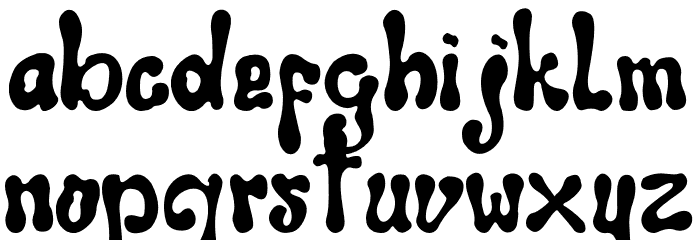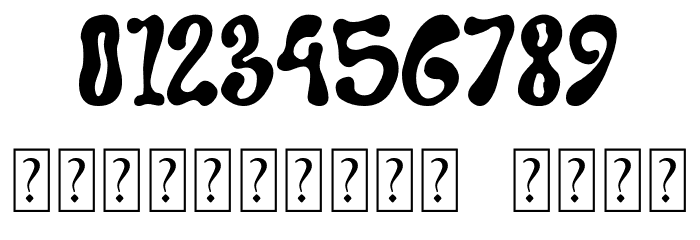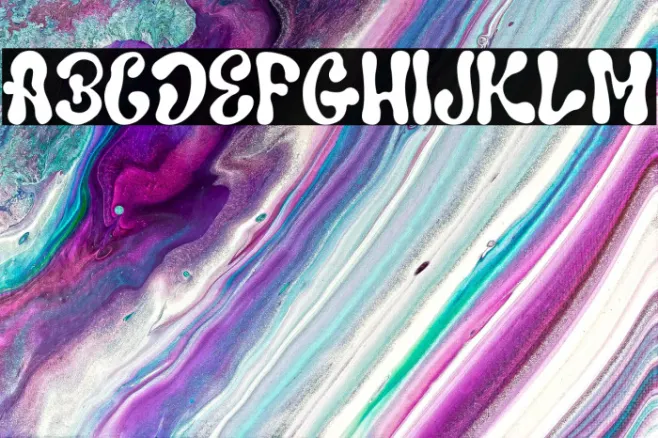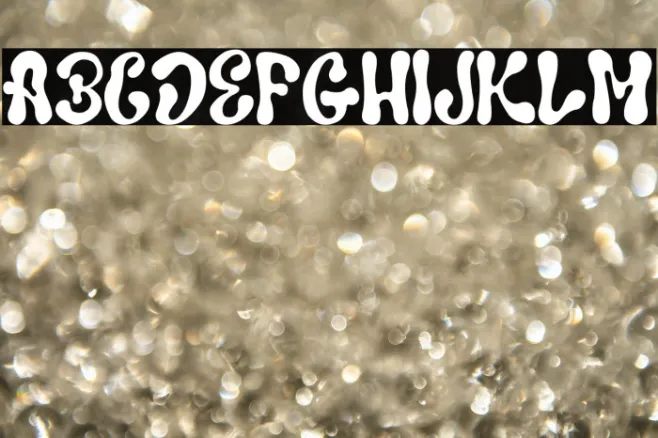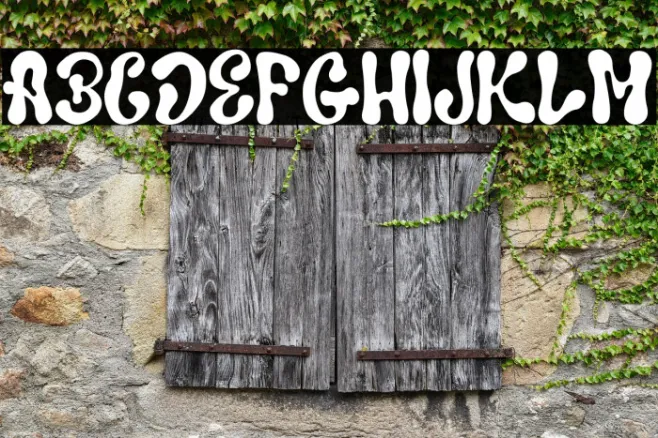
Wakaba Font
This font features a playful and bold design with a distinctly organic and fluid appearance. The characters are rounded and have a hand-drawn quality, giving them a whimsical and artistic feel. The strokes are thick and consistent, creating a strong visual impact. The uppercase and lowercase letters maintain a cohesive style, while the numbers and special characters complement the overall look. This font is ideal for projects that require a fun and engaging aesthetic.
A playful, bold, and organic font with a hand-drawn feel.
- Font: Wakaba
- Proposed Projects: Ideal for children's books, playful branding, posters, and creative invitations.
- Overall Style: Whimsical